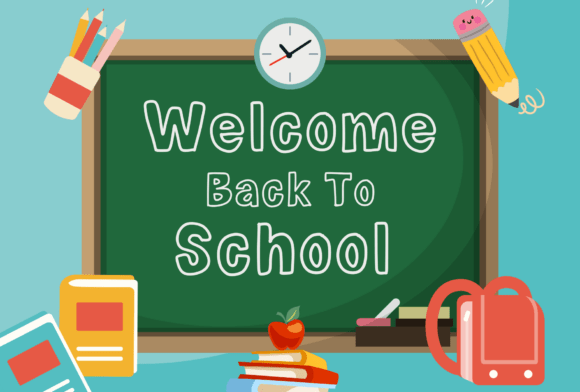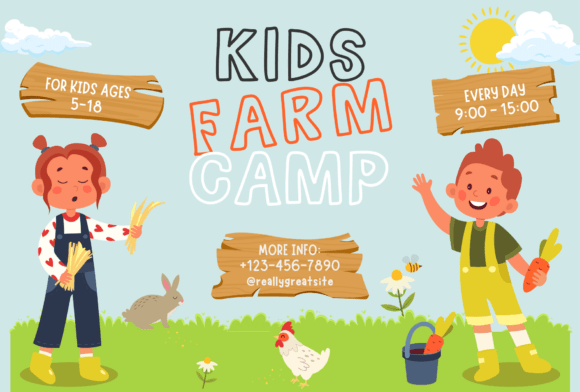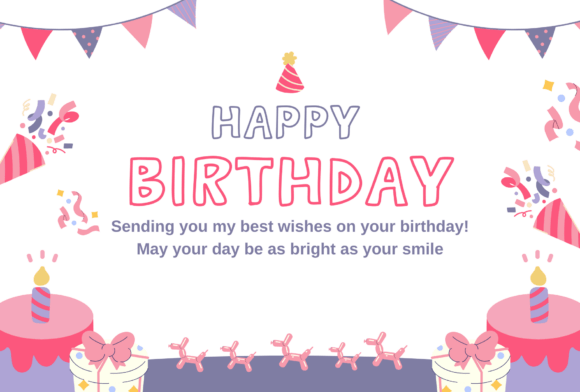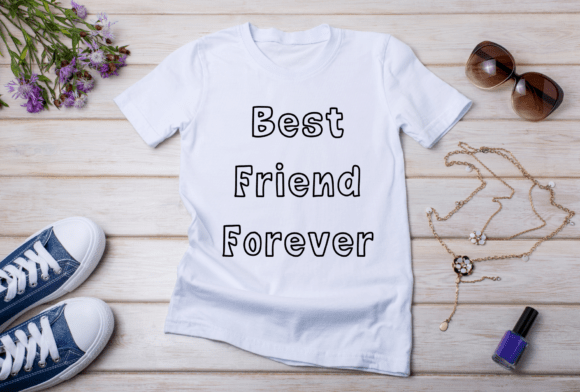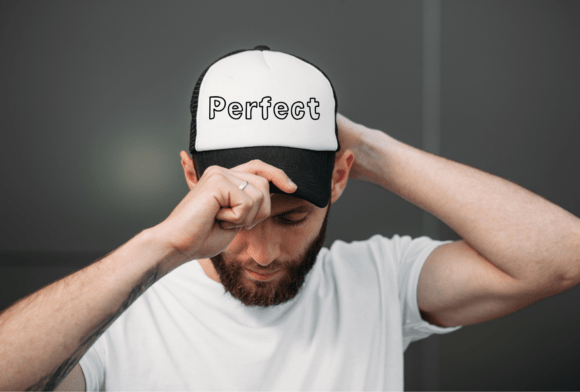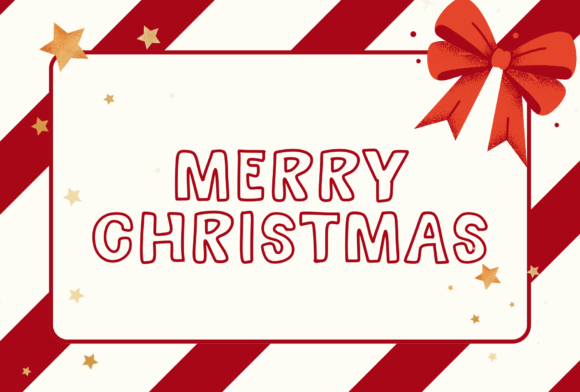
Aerospace Font: Elevate Your Designs with a Futuristic Touch
In the realm of typography, fonts play a crucial role in conveying the tone and aesthetic of a design. For projects that require a sleek, modern, and futuristic feel, the Aerospace outline font is an excellent choice. This typeface combines the best of both worlds – futuristic aesthetics and clean, geometric lines – making it perfect for sci-fi projects, technology branding, and high-tech design applications.
The Essence of Aerospace Font
The Aerospace outline font is characterized by its bold yet minimalistic design. Its clean lines and geometric shapes give it a futuristic feel that’s hard to ignore. The font’s sleek appearance makes it an ideal choice for designers who want to add a touch of sophistication and modernity to their work.
Key Features of Aerospace Font
- Clean and Geometric Lines: The Aerospace font boasts clean and geometric lines that give it a modern and futuristic feel.
- Bold yet Minimalistic: The font’s bold design makes it stand out, while its minimalistic approach ensures it doesn’t overwhelm the design.
- Versatile: The Aerospace font is versatile and can be used in various design applications, from sci-fi projects to technology branding.
- Easily Readable: Despite its bold design, the font remains easily readable, making it perfect for body text and headings.
Use Cases for Aerospace Font
The Aerospace font is an excellent choice for various design projects, including:
- Sci-Fi Projects: The font’s futuristic feel makes it a natural fit for sci-fi movies, games, and literature.
- Technology Branding: The Aerospace font is perfect for tech companies that want to convey a sense of modernity and innovation.
- High-Tech Design Applications: The font’s sleek design makes it suitable for high-tech design applications, such as robotics, engineering, and software development.
- Posters and Flyers: The Aerospace font can add a touch of sophistication and modernity to posters and flyers.
Tips for Using Aerospace Font Effectively
To get the most out of the Aerospace font, follow these tips:
- Pair it with Neutral Colors: The Aerospace font works well with neutral colors like black, white, and gray.
- Experiment with Font Sizes: The font’s bold design makes it suitable for both headings and body text.
- Add a Pop of Color: Add a pop of color to create visual interest and draw attention to specific design elements.
| Font Name | Aerospace Font |
| Author | Bassoonartwork |
The Aerospace outline font is a versatile and modern typeface that’s perfect for designers who want to add a touch of futurism to their work. Its clean lines, geometric shapes, and bold yet minimalistic design make it an excellent choice for sci-fi projects, technology branding, and high-tech design applications. By following the tips outlined above, designers can effectively use the Aerospace font to elevate their designs and create a lasting impression.